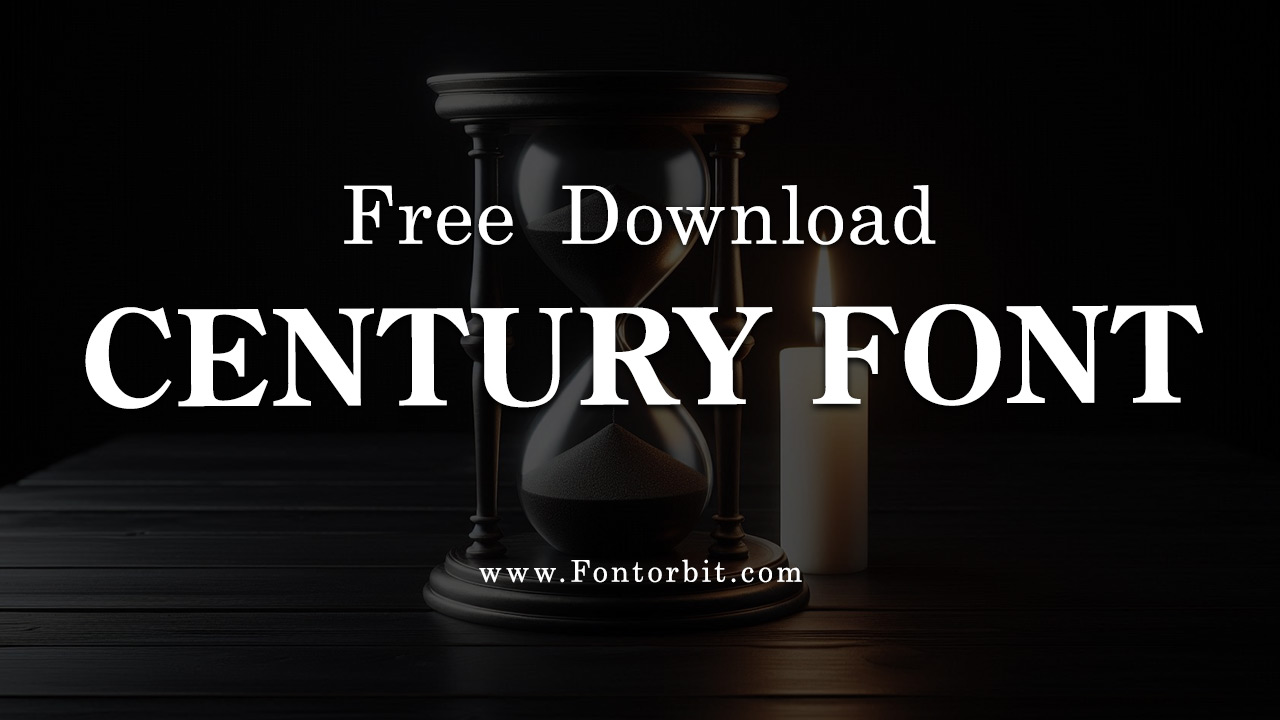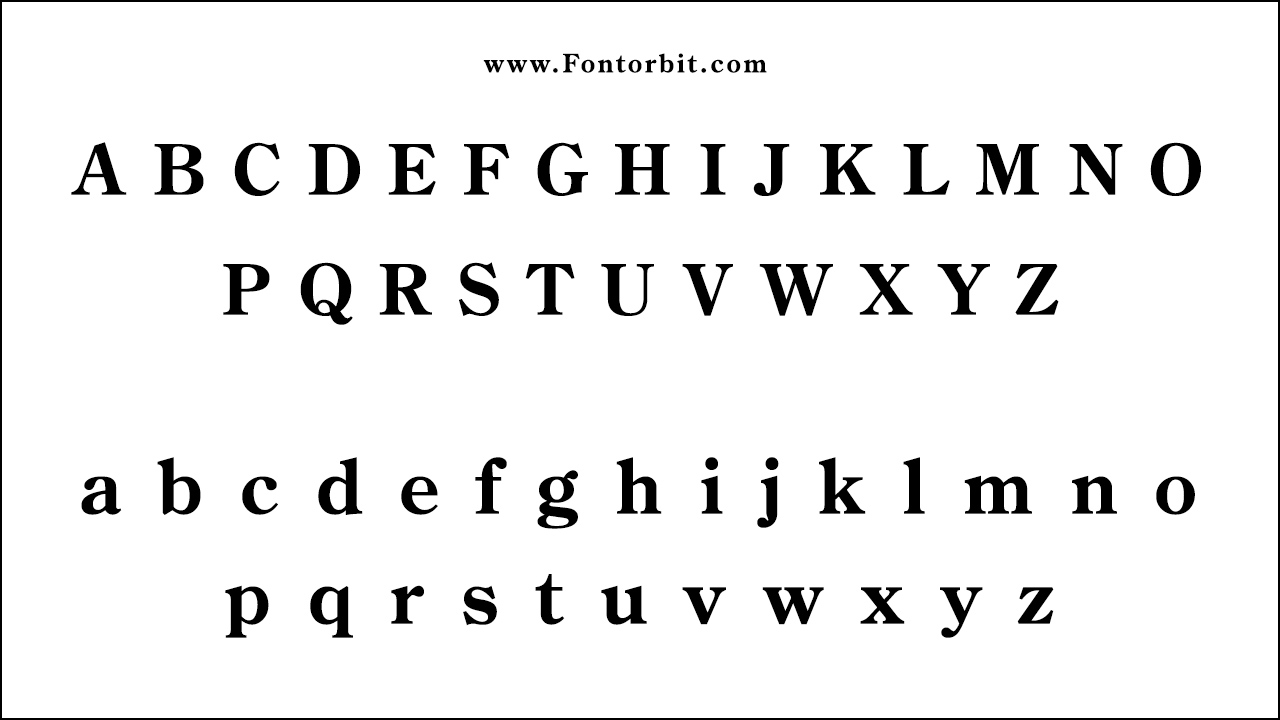
Century is a typeface family originally designed by American designer Linn Boyd and Morris Fuller Benton in 1894 for The Century Magazine.
It is classified as a serif typeface. This font was designed to be clear and readable for extended body text. It is still popular today for its readability and versatility.
Century Font Family Includes
- Century Schoolbook
- Century Old Style
- Century Expanded
- Century Bold
- And many more
Notable Uses Of Century Font
Century fonts are used for setting books, newspapers, magazines, headlines, and other display text due to their readability and versatility. Century fonts can be used for a variety of purposes, including:
- Body text
- Books,
- Magazines
- Newspapers
- Display text
- Branding materials
- Web design
Century is a versatile typeface family that can be used for various purposes, from body text to headlines and branding materials. Its classic design and excellent readability make it popular among designers and publishers. Whether you’re working on a book, a website, or a marketing campaign, Century is a font that can help you achieve your goals.
1.What Is The Century Font Family?
The Century font family consists of typefaces with similar designs. The most well-known members include Century Schoolbook, Century Old Style, and Century Expanded.
2.Who Designed The Century Font Family?
American typeface designer Linn Boyd Benton designed the Century font family in 1894.
4.What Are Some Good Alternatives To The Century Font?
Some good alternatives to the Century font include Times New Roman, Georgia, Garamond, and Calibri.